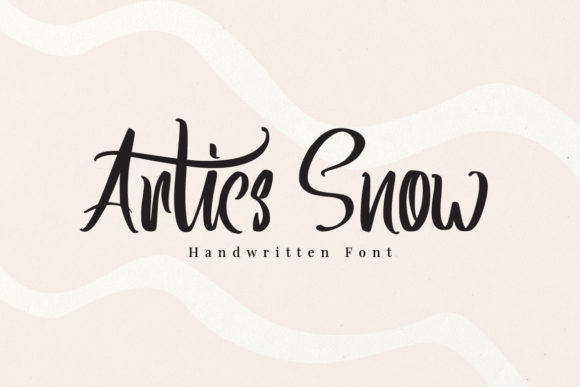
The Elusive Perfect Font: My Encounter with Artics Snow
Have you ever been in the middle of a design project, and suddenly, you’re stuck on finding the perfect font? I was working on a winter-themed craft project, and my design just wasn’t coming together. The font I was using felt too generic, too boring. That’s when I stumbled upon Artics Snow, a friendly and modern script font that instantly caught my attention. Its unique style and contemporary coolness made me feel like I’d finally found what I was looking for.
First Impressions: A Review of Artics Snow
- ✨ Unique and modern script style that’s perfect for winter-themed designs
- ✅ Friendly and approachable feel that’s great for crafting and hobby projects
- 💻 Highly legible, even at smaller font sizes
- 🎨 Great for designs that need a touch of whimsy and playfulness
While Artics Snow is an amazing font, there are a few things to keep in mind:
- 🤔 Some letters may appear a bit narrow, which can affect readability in certain contexts
The Story Behind Artics Snow
Artics Snow was designed by a team of creatives who wanted to capture the magic and wonder of winter in a font. Inspired by snowflakes, winter landscapes, and cozy nights by the fire, they crafted a font that’s both modern and inviting. The result is a font that’s perfect for designers, crafters, and hobbyists who want to add a touch of winter wonder to their projects.
| Font Name | Artics Snow Font |
| Author | feydesign |
Q: What type of designs is Artics Snow best suited for?
A: Artics Snow is perfect for winter-themed designs, such as holiday cards, snowflake decorations, and winter wonderland scenes.
Q: Is Artics Snow available in different font weights?
A: Currently, Artics Snow is available in a single font weight, but the design team may release additional weights in the future.